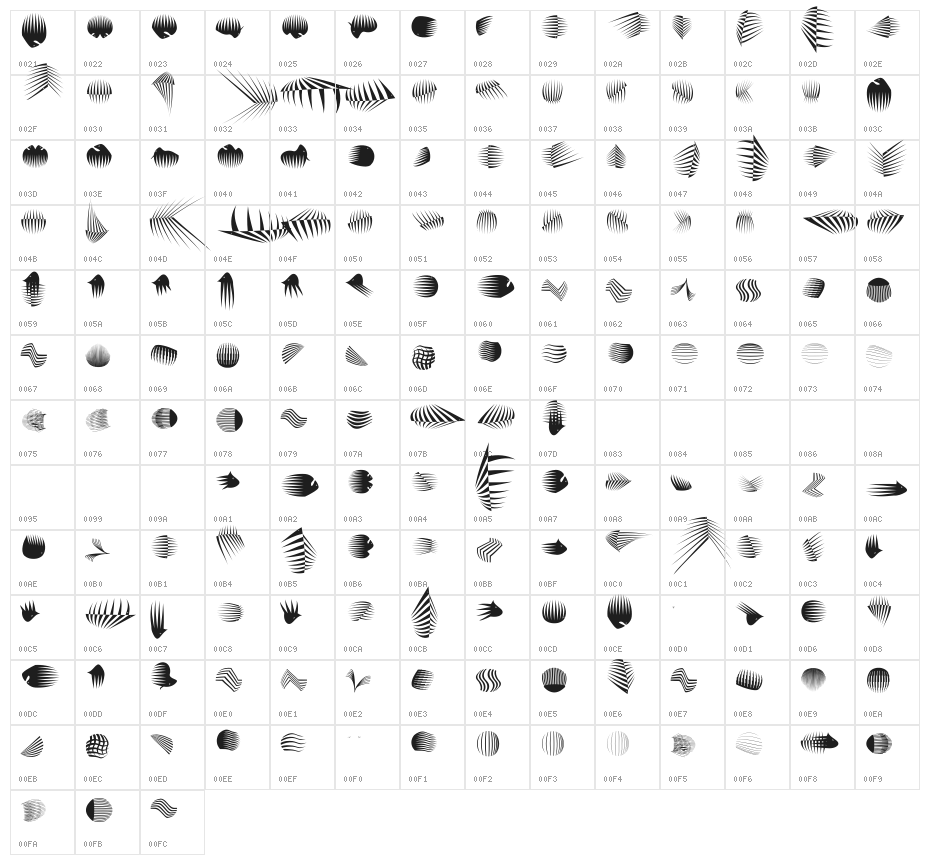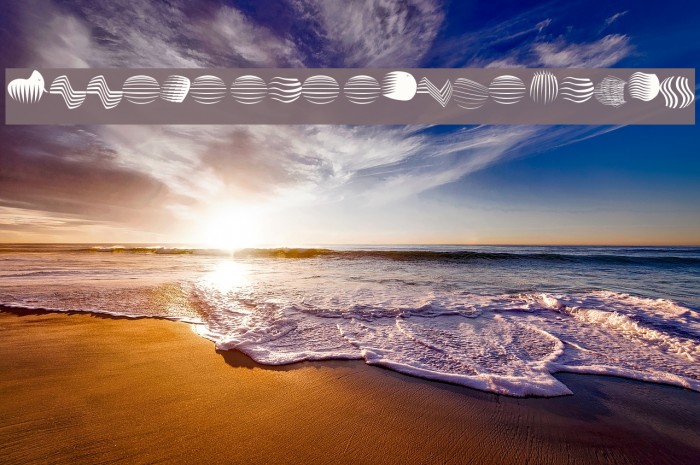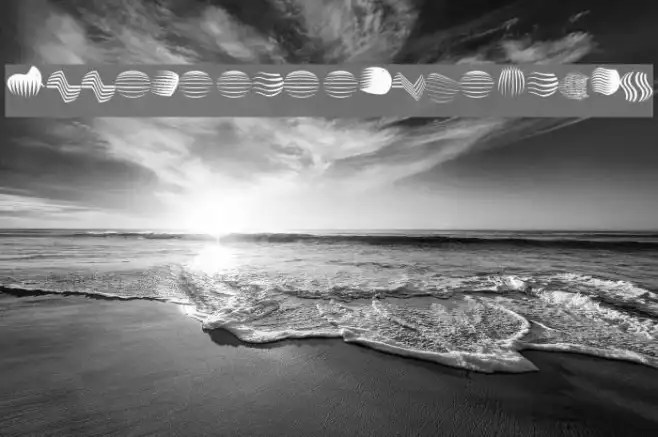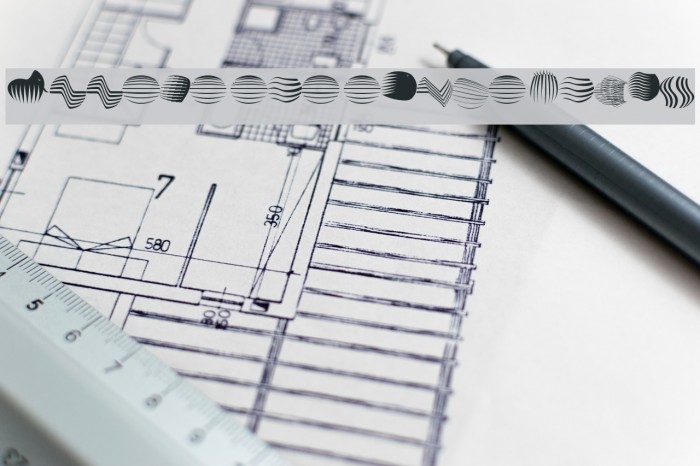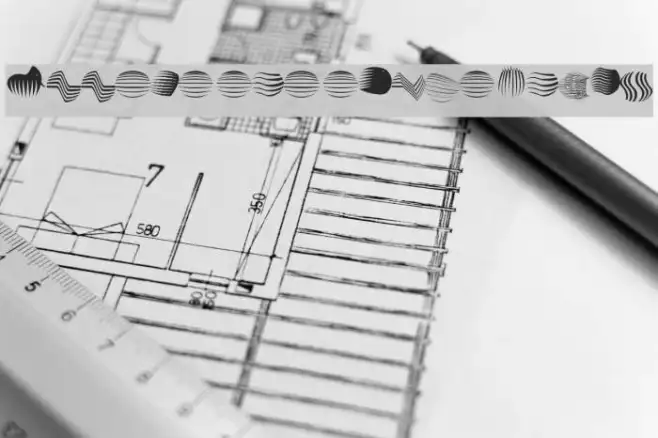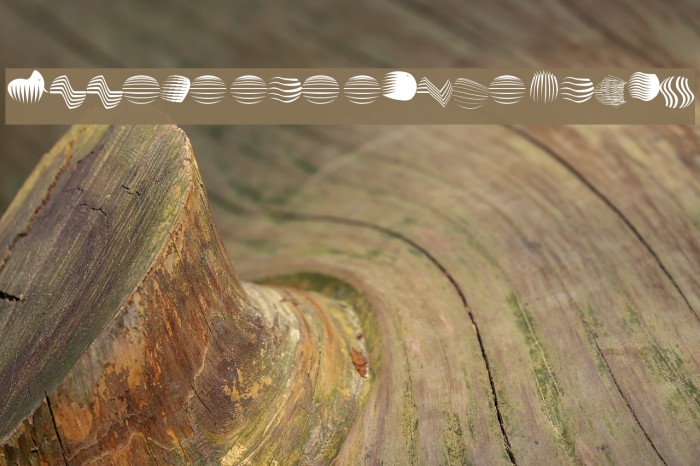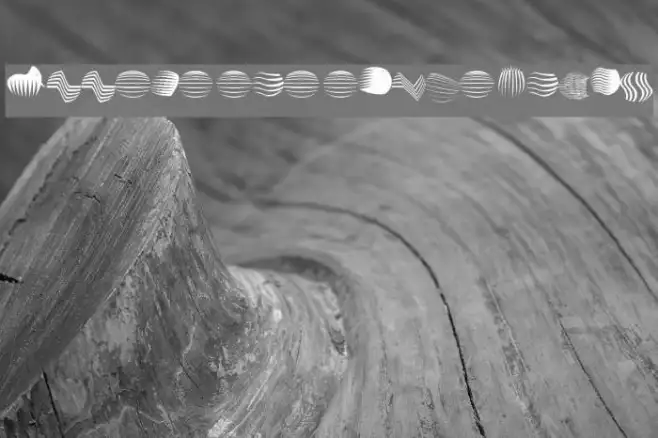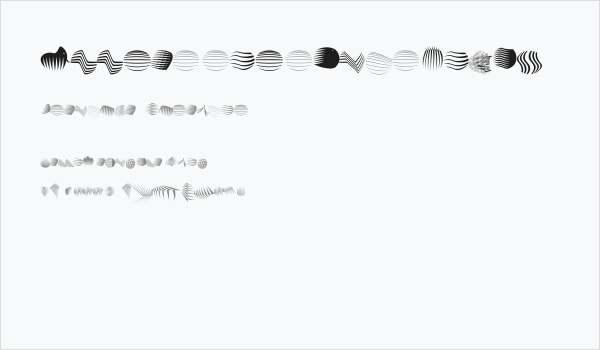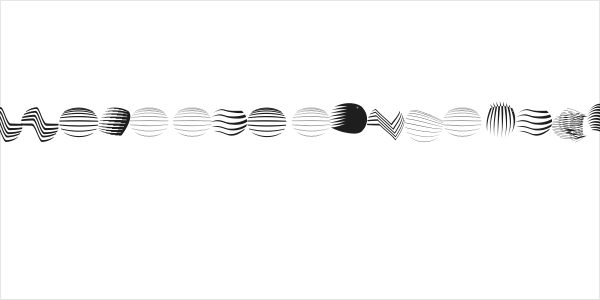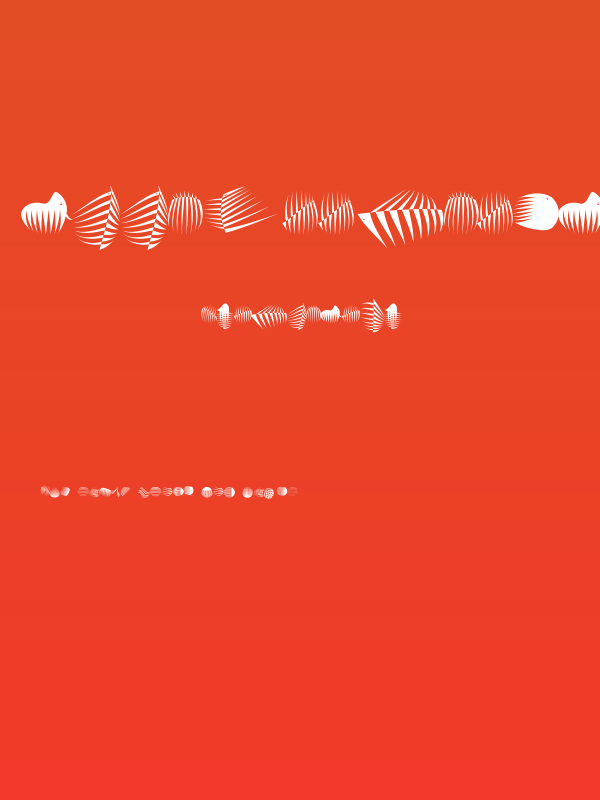
AggressorsBatsRound Font
AggressorsBatsRound Description
This design features a series of abstract, organic shapes that resemble a blend of natural forms and geometric patterns. Each character is composed of intricate lines and curves, creating a dynamic sense of movement and flow. The use of black and white contrast enhances the visual impact, making each element stand out distinctly. The overall appearance is modern and artistic, with a focus on visual rhythm and texture. These shapes could be interpreted as stylized representations of natural elements, such as leaves or waves, combined with a futuristic aesthetic.
| Use Case | Art installations, branding, abstract design elements. |
| Proposed Projects | Ideal for modern art projects, abstract design elements, or unique branding visuals. |